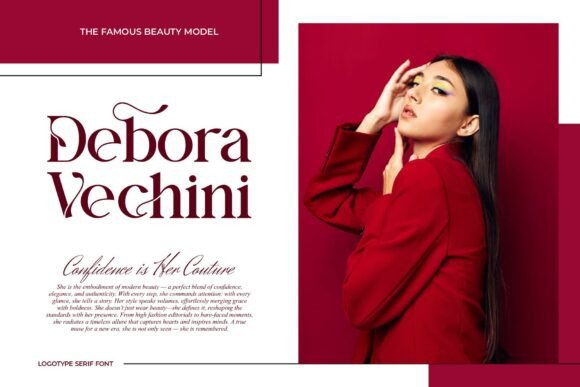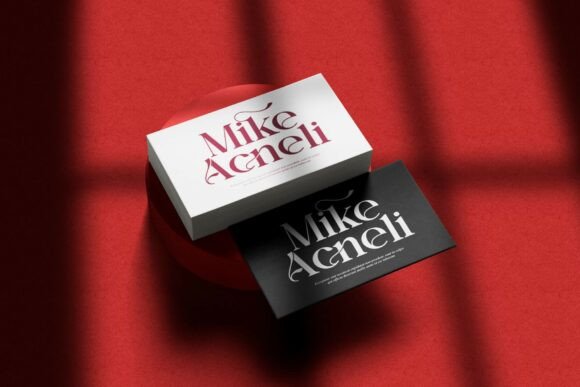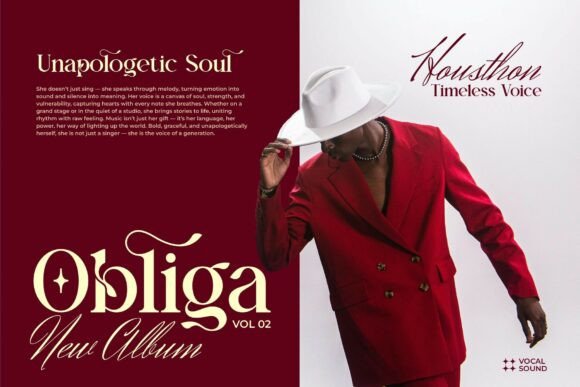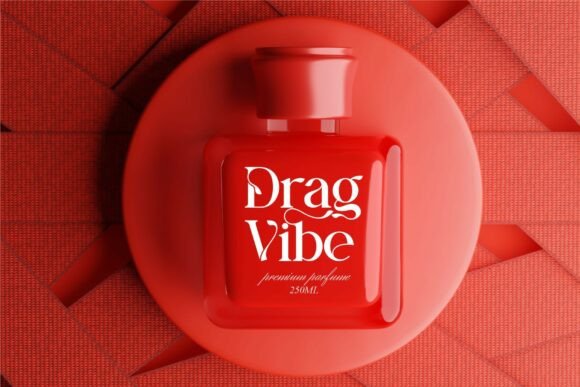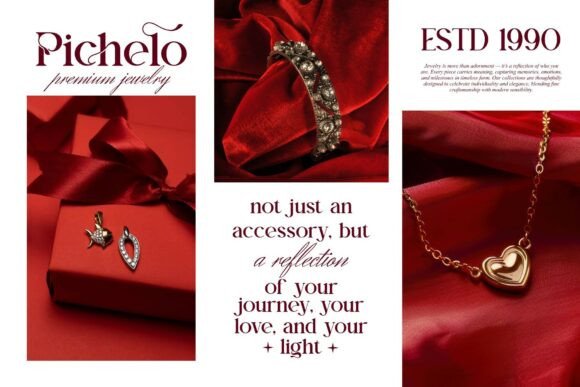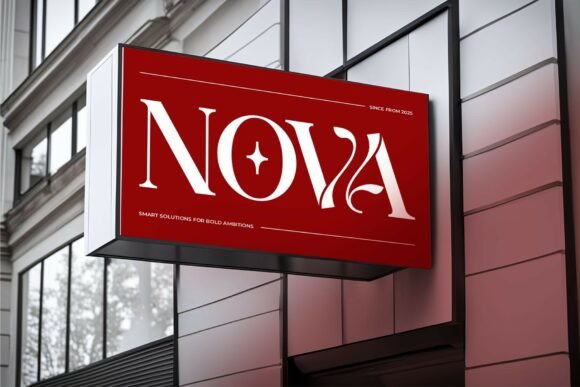
Have you ever stared at a blank canvas, waiting for the perfect font to strike inspiration? It’s that moment of creative clarity when the right typeface can elevate your design from ordinary to extraordinary. For designers, finding the perfect font can be a game-changer. That’s where Asveda Serif comes in – a modern and classy font type that’s designed to make your branding and logo designs shine.
Asveda Serif is more than just a font – it’s a statement piece that exudes sophistication and elegance. With its smooth, stylish ligatures and beautiful character, this font is perfect for a wide range of designs, from invitation cards to movie titles, business cards to book titles. As a designer, having Asveda Font in your toolkit can be a valuable asset, giving you the flexibility to create stunning designs that capture the essence of your brand.
Asveda Font Key Features
- Unique Characteristics: Asveda Font features a unique blend of modern and traditional elements, making it an ideal choice for designers seeking a distinctive look.
- Font Style: Asveda Font is available in both regular and bold styles, providing designers with flexibility to choose the perfect font weight for their project.
Asveda Font Review
As a designer, I was excited to dive into the Asveda Font and see what it has to offer. Here’s my honest review:
- Unique Style: Asveda Font has a distinctive, hand-drawn feel that sets it apart from other fonts. I appreciate the effort put into creating a one-of-a-kind design.
- Good Legibility: Despite its unconventional style, Asveda Font is surprisingly easy to read. The font’s curves and lines work well together to create a clear, readable text.
- Customization Options: The font includes a range of weights and styles, making it versatile and adaptable to various design projects.
- Overuse Potential: With its unique style, Asveda Font risks being overused or misused. Designers may rely too heavily on its distinctive look, rather than experimenting with other fonts and styles.
- Limited Character Set: The font’s character set is somewhat limited, which may be a concern for designers working with non-English languages or requiring specific symbols.
Overall, Asveda Font is a solid choice for designers looking for a unique, hand-drawn feel. While it has its limitations, the font’s strengths make it a great addition to any design project. With careful use and consideration, Asveda Font can help create visually striking and memorable designs.
Tips for Getting the Most Out of Asveda Font
Here are some tips to help you get the most out of Asveda Font:
- Use Asveda Font for headings and titles to add a touch of elegance to your design.
- Experiment with different font sizes and colors to create a visually appealing design.
- Combine Asveda Font with other fonts to create a unique and interesting typography.